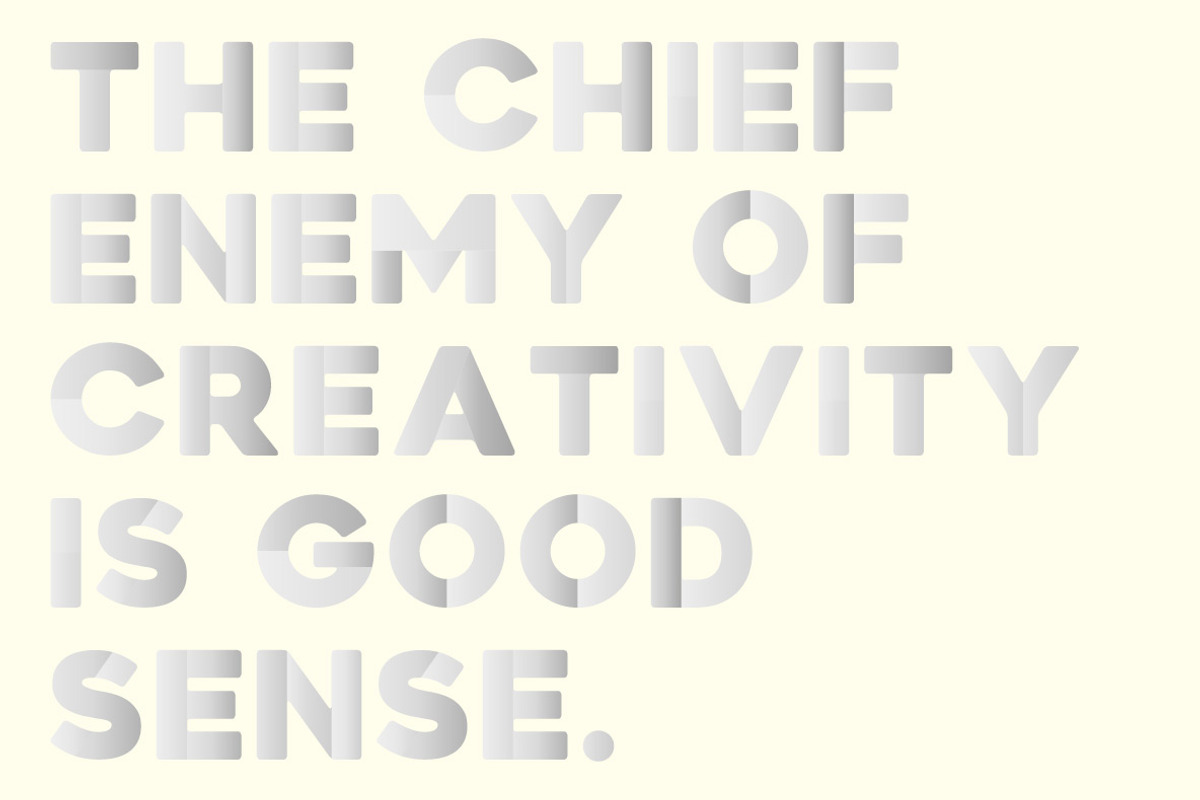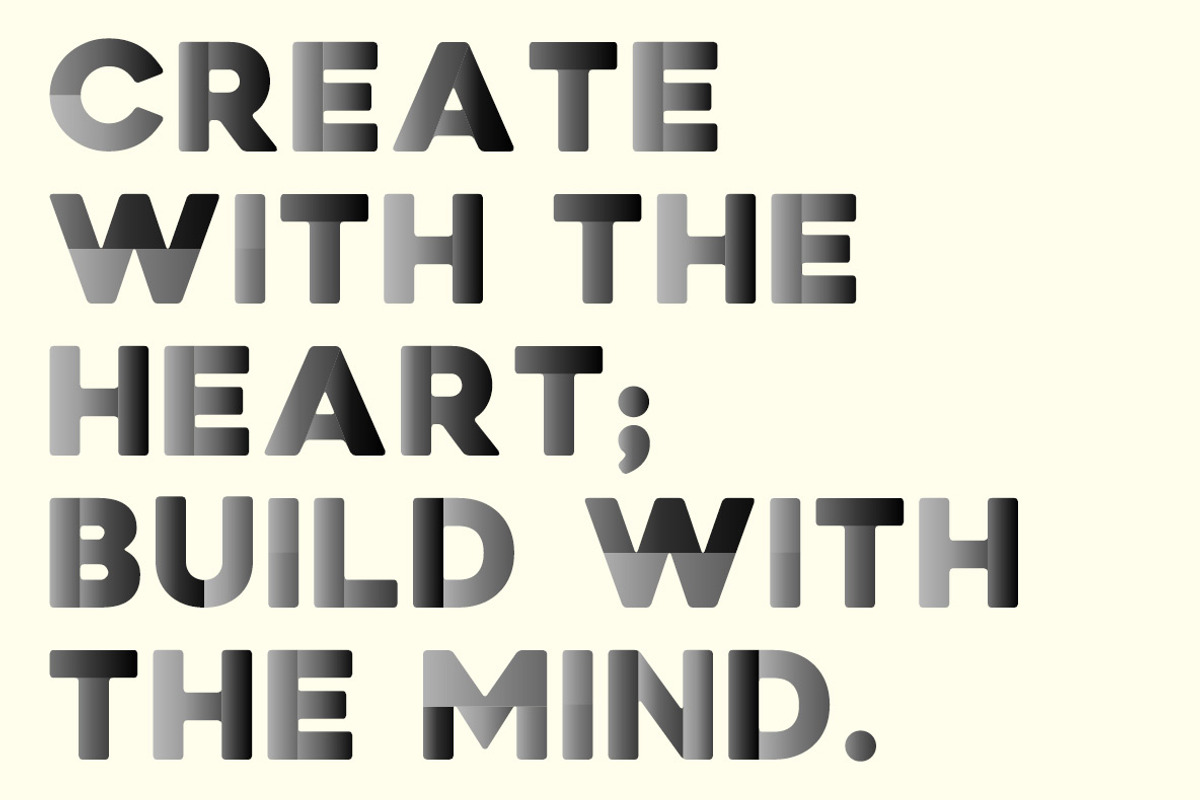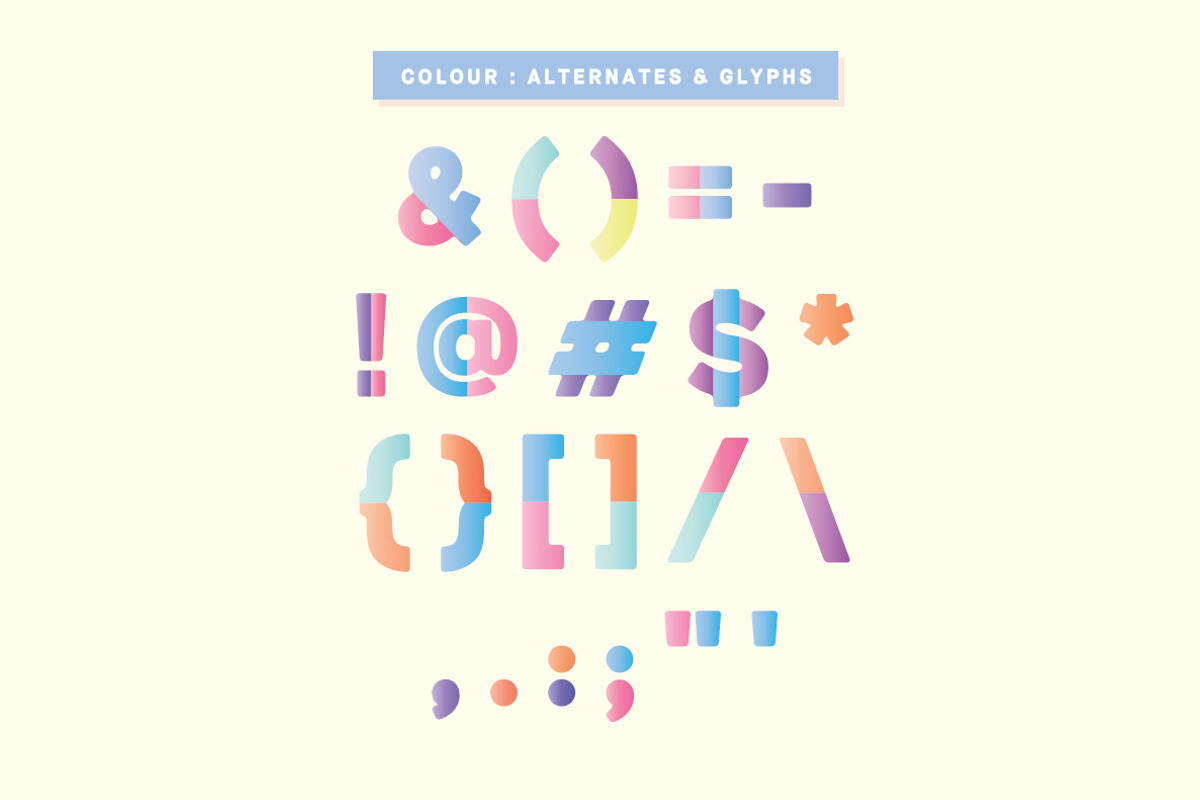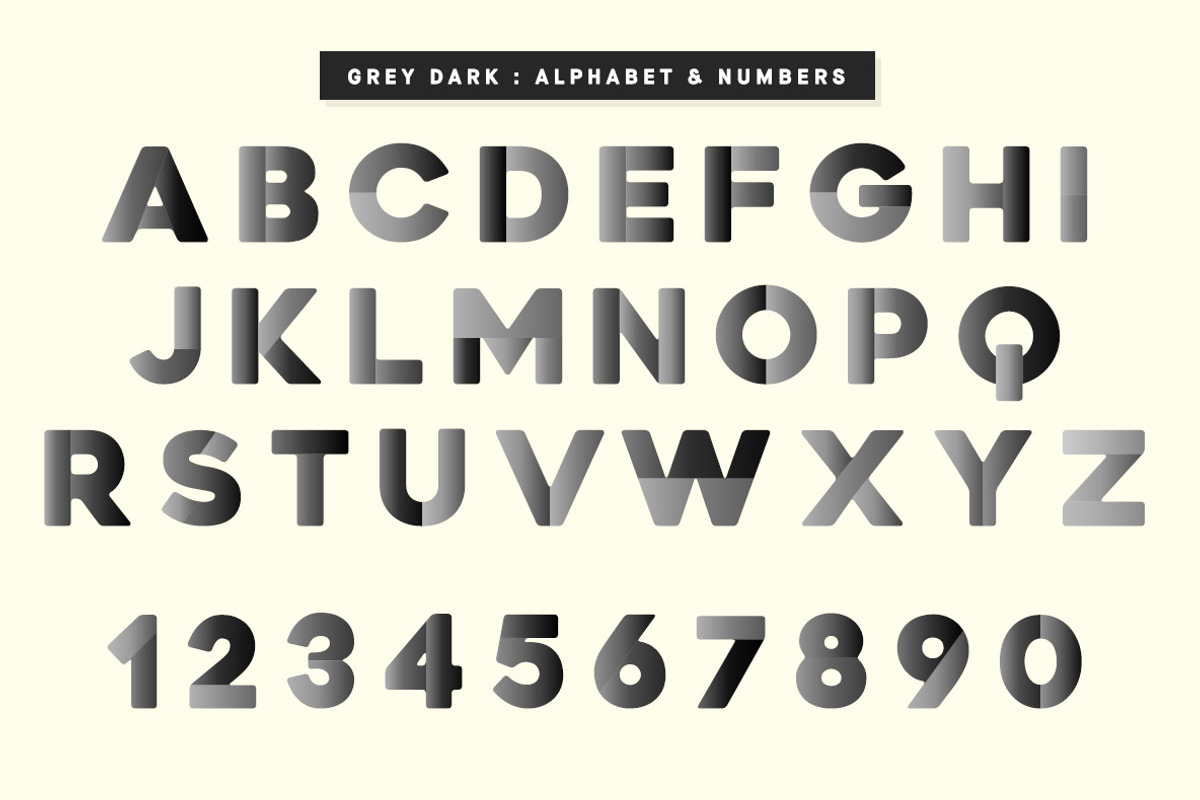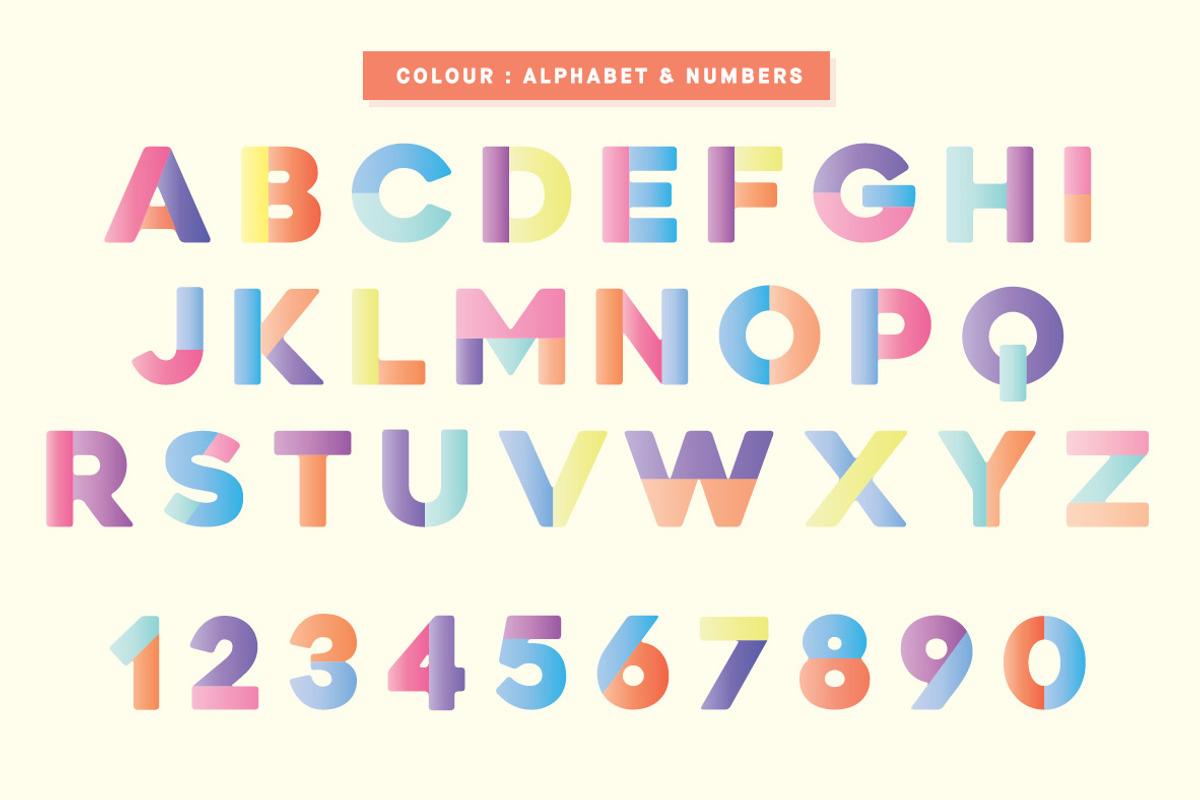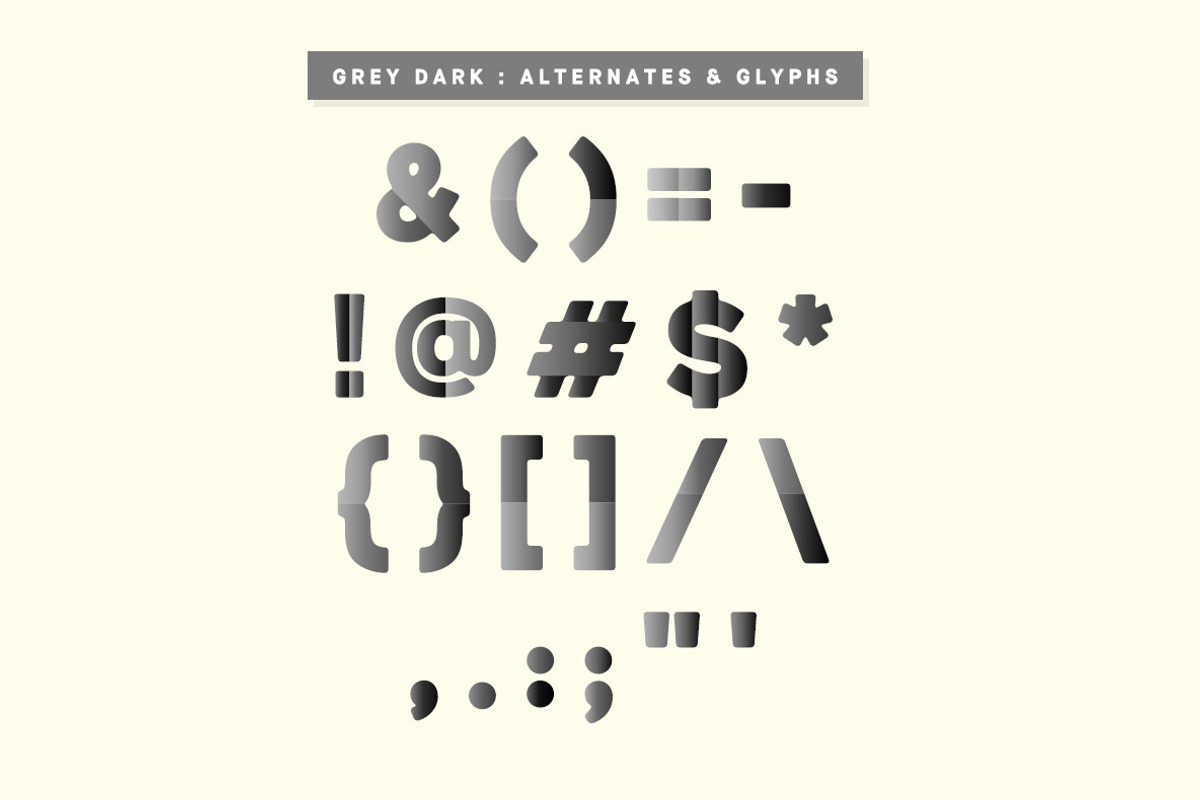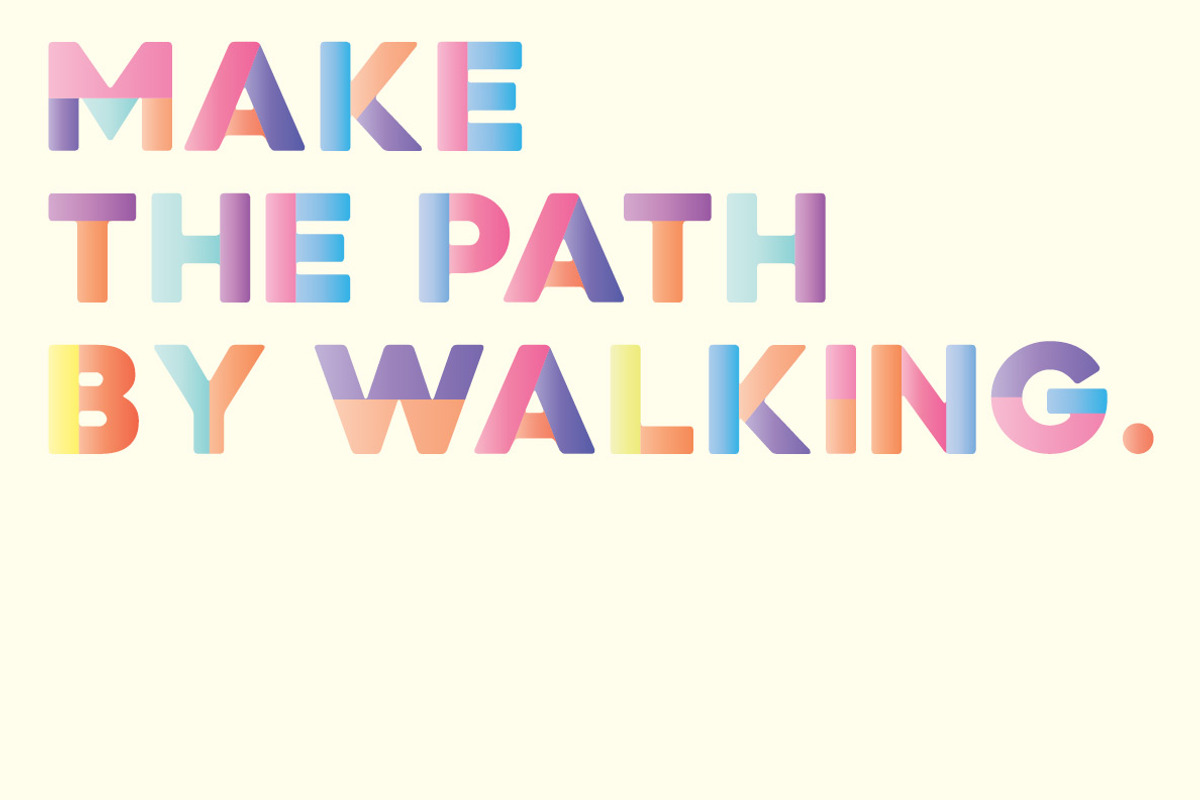
Newport Tracks - Colour Font
Newport Tracks comes with three choices of colour palette - one beautiful pastel colour variation and two minimal greyscale variations (light and dark). You can adjust the colours converting your type to paths and working from there.
Why Newport Tracks - Colour Font is worth a look
Newport Tracks - Colour Font by Huebert World fits naturally into Branding, posters, packaging, typography.